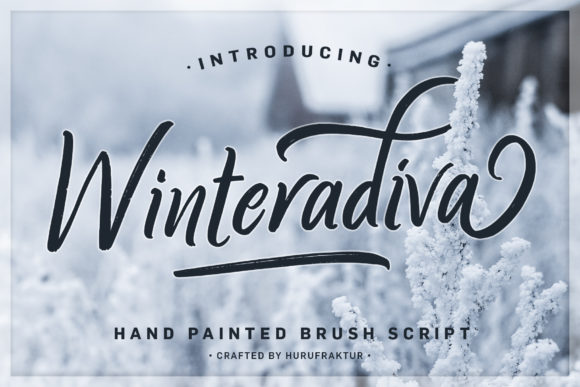
In a world where typography reigns supreme, introducing Winteradiva Font - a script that embodies the essence of the coldest season, captivating your designs with its enchanting grace. Crafted with meticulous attention to detail by hurufraktur, this font family is adorned with intricate swirls and elegant curves, reminiscent of snowflakes dancing in the winter breeze.
Winteradiva Font is not just a font; it's an experience that transports you to a winter wonderland. Its enchanting script weaves a tale of frosty mornings, cozy fireplaces, and the magic that lies within the heart of winter. Whether you're a seasoned designer or a creative enthusiast, Winteradiva Font will elevate your designs to new heights, leaving an imprint of elegance and sophistication.
Unlock the boundless possibilities of Winteradiva Font and let your imagination soar. Create stunning logos that evoke the charm of a winter's day, design captivating social media posts that sparkle like freshly fallen snow, or craft enchanting invitations that capture the essence of the season. The versatility of Winteradiva Font knows no bounds, making it the perfect choice for a wide array of projects.
With Winteradiva Font, you'll be able to:
* Weave a web of enchanting designs that capture the magic of winter.
* Transport your audience to a world of frosty elegance and sophistication.
* Leave a lasting impression with designs that radiate an aura of timeless beauty.
* Unleash your creativity and explore the endless possibilities of this captivating script.
Don't let this opportunity to elevate your designs pass you by. Embrace the allure of Winteradiva Font today and embark on a creative journey that will leave you spellbound.